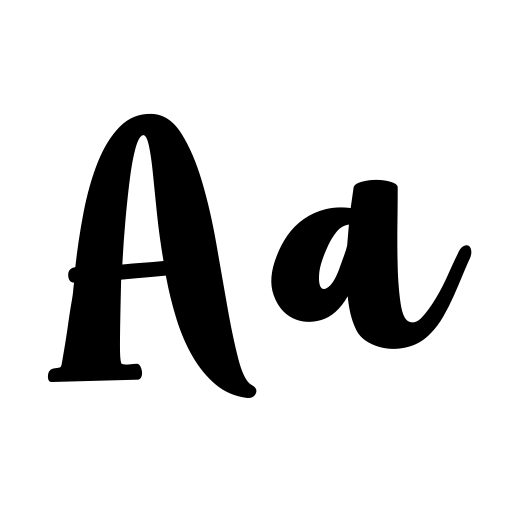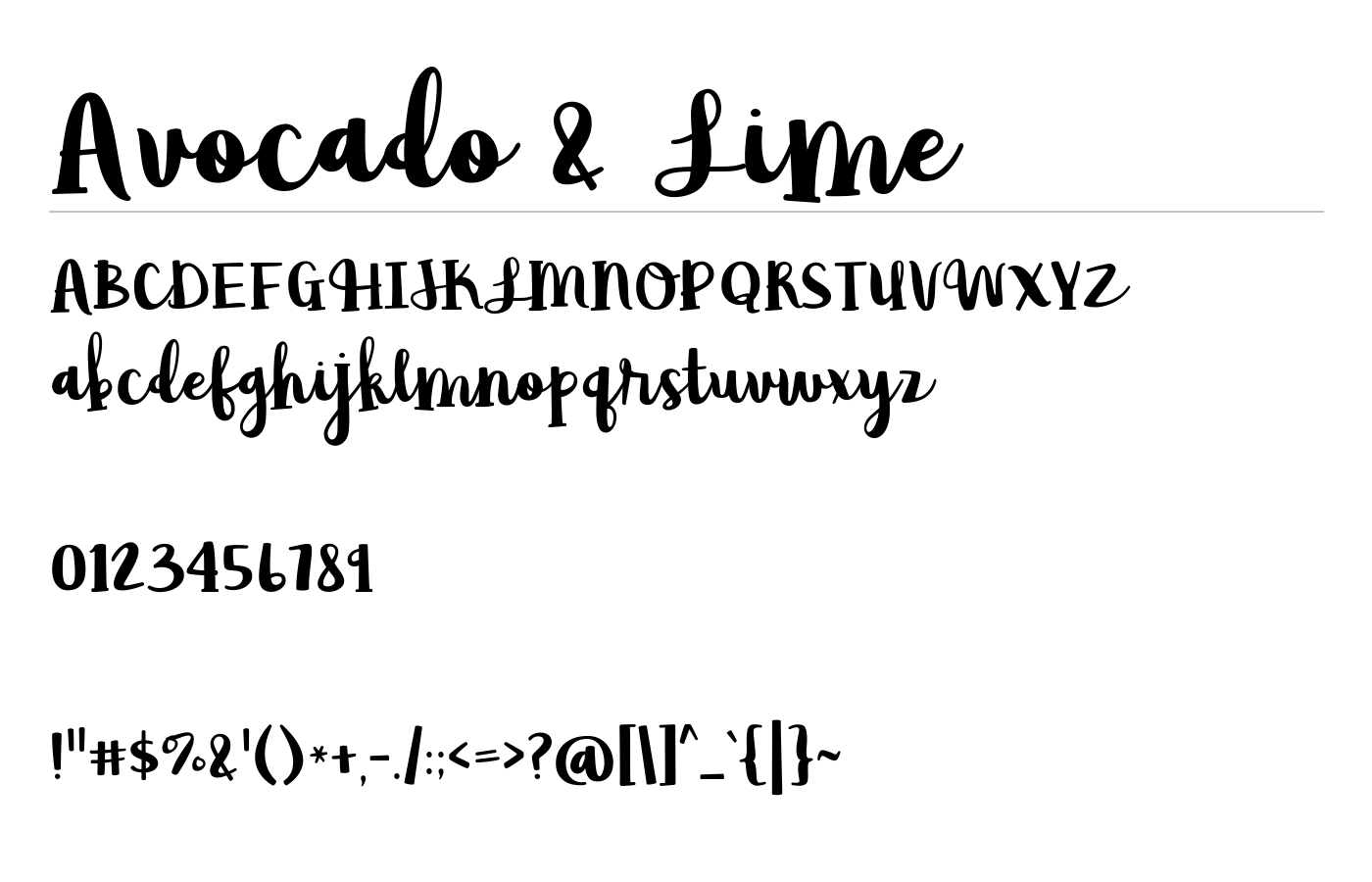
Avocado & Lime is a playful script font with a lively, hand-lettered feel that combines thick, rounded strokes and playful curves for a friendly, approachable look. Its warm, casual style is perfect for brands and projects that want to communicate creativity, fun, and charm, making it a great fit for packaging, invitations, social media, and casual headlines. With its balanced mix of personality and legibility, this font adds a fresh and inviting touch wherever used.
Avocado & Lime Font
About Avocado & Lime Font
| Font family | Avocado & Lime Font |
| Designer | Brittney Murphy |